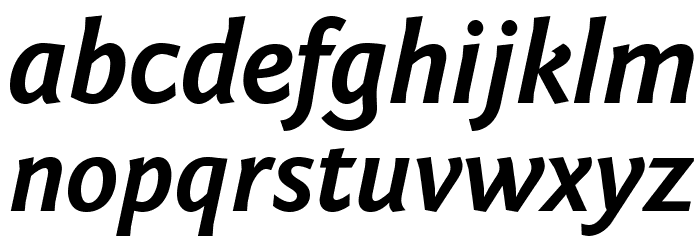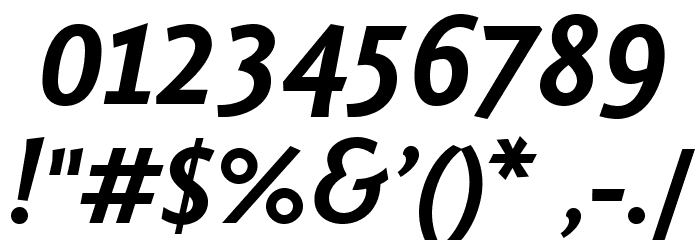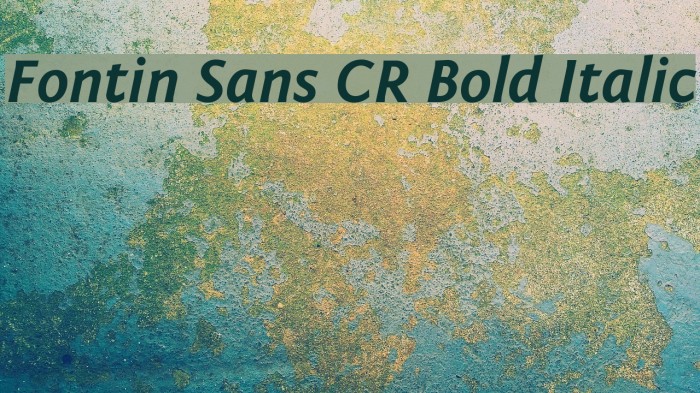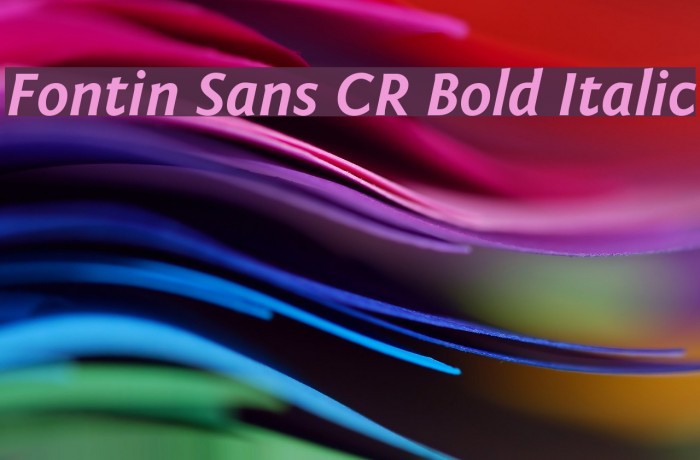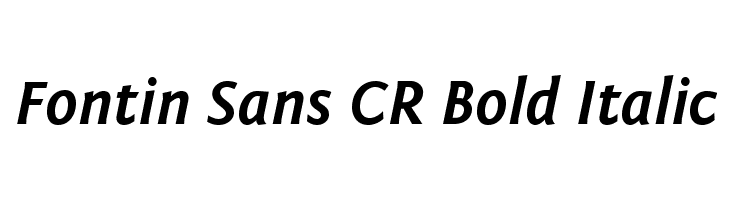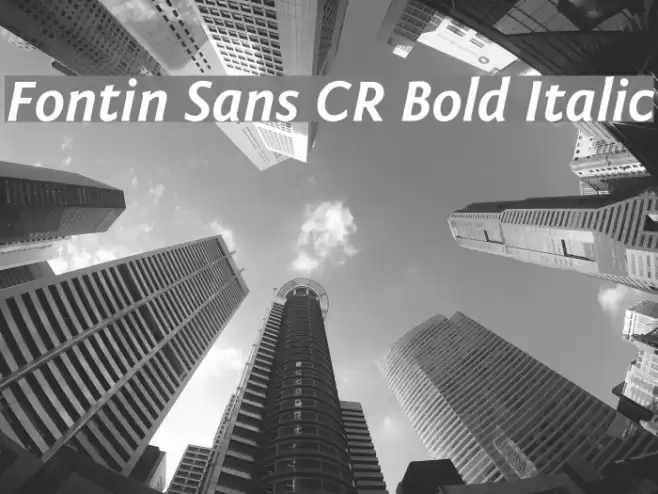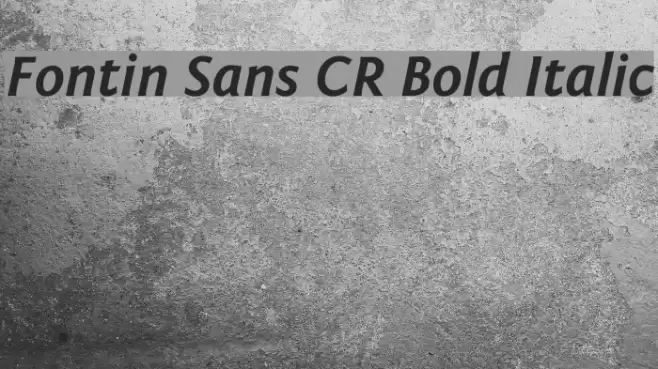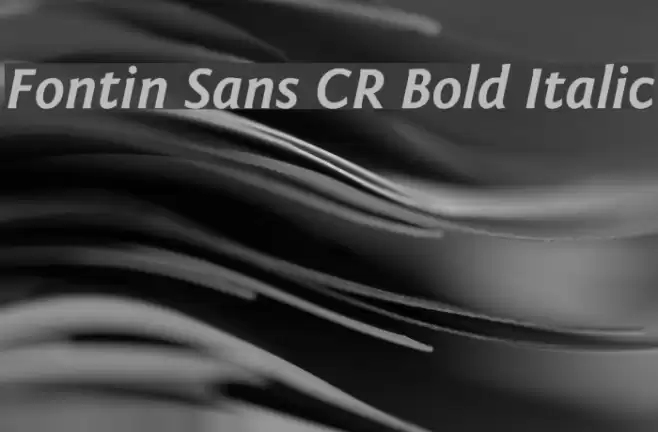
Fontin Sans CR Bold Italic Font
This font features a clean and modern sans-serif design with a bold and italic style. The characters are well-defined with smooth curves and a slight slant, giving it a dynamic and elegant appearance. The uppercase letters are tall and commanding, while the lowercase letters maintain a consistent flow, enhancing readability. Numbers and special characters are designed to complement the overall aesthetic, ensuring versatility across various applications. The font's bold weight and italic style make it suitable for attention-grabbing headlines and impactful text displays.
A bold, italic sans-serif font with a modern and dynamic style.
- Proposed Projects: Ideal for branding, advertising, headlines, and digital content where a strong and modern impression is desired.
- Use Case: Headlines, Logos, Branding